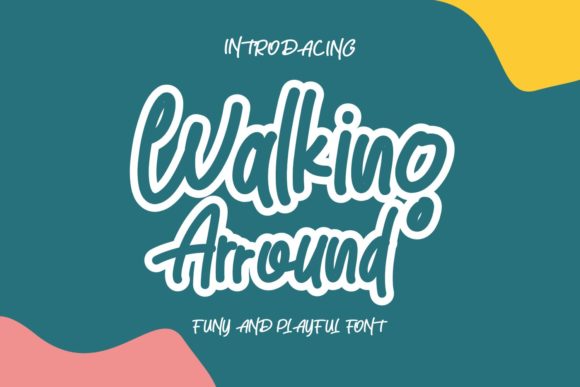
Walking Around Font: A Relaxed Typeface for Editorial Design
Last Tuesday, while finalizing the layout for a seasonal wellness guide, I found myself staring at a blank cover mockup that felt entirely too stiff. The content was warm, personal, and inviting, but the typography screamed corporate memo rather than mindful living. That is when I decided to test Walking Around, a relaxed and flowing handwritten font that promised to bridge the gap between professional polish and authentic human connection. As editorial designers and publishers know, finding the right typeface is rarely just about aesthetics; it is about translating a specific emotional frequency into visual form. In this real-world layout project, Walking Around proved to be the versatile script handwritten solution needed to transform a static PDF into an experience that readers actually want to engage with.
Walking Around for Lifestyle Blog Headers and Brand Identity
When integrating Walking Around into digital spaces like lifestyle blog headers or brand identity kits, this script handwritten font immediately establishes a tone of approachable sophistication. Unlike rigid display fonts that can create distance between the publisher and the reader, Walking Around offers a rhythmic flow that mimics natural handwriting without sacrificing legibility on screen. During my redesign testing, I applied this typeface to the main navigation and hero text of a wellness publication. The result was a header that felt bespoke and intentional, signaling to visitors that the content within was crafted with care rather than mass-produced.
For bloggers and content creators, the versatility of Walking Around lies in its ability to anchor a brand identity without overwhelming the user interface. It works exceptionally well as a signature element in logo design or as a recurring motif in social media graphics. Because the letterforms are relaxed yet structured, they maintain clarity even when scaled down for mobile viewing or Instagram stories. This balance is crucial for modern typography, where a creative font must perform across multiple touchpoints. When used sparingly in headers, Walking Around acts as a visual handshake, inviting the audience into a narrative space that feels personal, safe, and distinctly human.
Using Walking Around Font for Ebook Covers and Digital Guides
Designing compelling ebook covers and digital guides requires fonts that communicate value and mood instantly, and Walking Around excels in this high-stakes visual environment. While testing this typeface for a downloadable mindfulness workbook, I discovered that its flowing character creates an immediate emotional hook that standard sans serif fonts simply cannot achieve. The font’s organic movement suggests a journey or a process, which aligns perfectly with transformational content like coaching workbooks, recipe collections, or self-help guides. It tells the potential reader before they even click "download" that this resource is a companion, not just a textbook.
In the context of digital products, readability remains paramount even for decorative elements. Walking Around strikes a rare balance for a script handwritten style: it is expressive enough to serve as the primary title treatment but clean enough to remain legible against complex background imagery or textured paper overlays. When designing the interior chapter openers for the workbook, I utilized Walking Around for section titles to maintain thematic consistency with the cover. This created a cohesive reading experience where the typography reinforced the content’s calming message. For creators selling printable planners or course PDFs, this level of typographic cohesion elevates the perceived value of the digital asset, justifying premium pricing through thoughtful design.
Font Pairing Strategies for Walking Around in Editorial Layouts
To maximize the impact of Walking Around in editorial layouts, pairing it with the correct body copy typeface is essential for maintaining visual hierarchy and reading comfort. As a display-focused script handwritten font, Walking Around demands a supportive partner that provides stability and contrast. During the wellness guide project, I paired it with a classic, high-x-height serif font for the main article text. The serifs provided the necessary structure for long-form reading, allowing Walking Around to shine in pull quotes, sidebars, and annotations without competing for attention. This interplay between the fluid display font and the grounded serif created a dynamic rhythm that kept the eye moving effortlessly down the page.
Alternatively, for more modern or minimalist publications, Walking Around pairs beautifully with a clean geometric sans serif font. This combination works particularly well in newsletter graphics, worksheet instructions, or caption-heavy magazine spreads. The sans serif handles the informational heavy lifting, while Walking Around adds moments of delight and emphasis. It is important to avoid pairing this font with other scripts or highly decorative display fonts, as this can lead to visual clutter and reduced legibility. By treating Walking Around as the singular voice of personality in your typographic system, you ensure that every instance of its use feels deliberate and spectacular.
Readability and Licensing for Commercial Fonts in Printables
Before committing Walking Around to a commercial project like a paid newsletter, client publication, or Etsy printable shop, understanding both readability nuances and licensing is non-negotiable. While this script handwritten font is incredibly versatile, its relaxed nature means it is best reserved for titles, subtitles, short phrases, and decorative accents rather than dense paragraphs. In print materials, ensure there is adequate leading and letter spacing to prevent the flowing connections from merging into indistinct shapes, especially at smaller point sizes. For screen-based designs, always test the font on multiple devices to verify that the delicate strokes render clearly on lower-resolution displays.
Equally important is verifying the specific commercial font licensing included with your purchase. Fonts like Walking Around often come with different tiers for personal use, small business commercial use, and extended licensing for large-scale distribution or template resale. If you are creating templates for Canva, selling editable planners, or embedding the typeface in an app, you must confirm that your license covers these specific use cases. Checking for included alternates, ligatures, and multilingual support is also vital for professional editorial design. These extra glyphs allow you to customize the flow of the script to fit unique layout constraints, ensuring that your spectacular designs remain legally compliant and typographically refined.